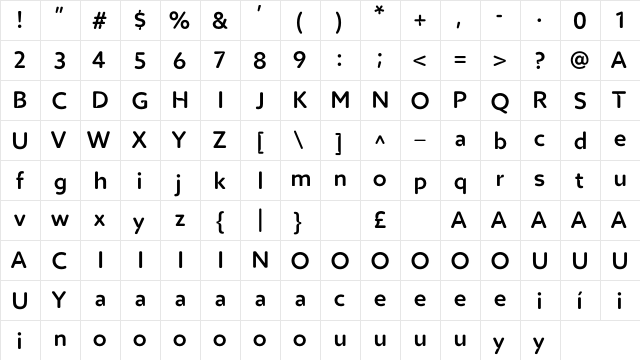
Priborg Sans Regular
| Designer | Twonine Design |
Design Context for Priborg Sans Typeface
Priborg Sans is a composed and adaptable typeface that performs quietly and consistently across a wide range of design contexts.